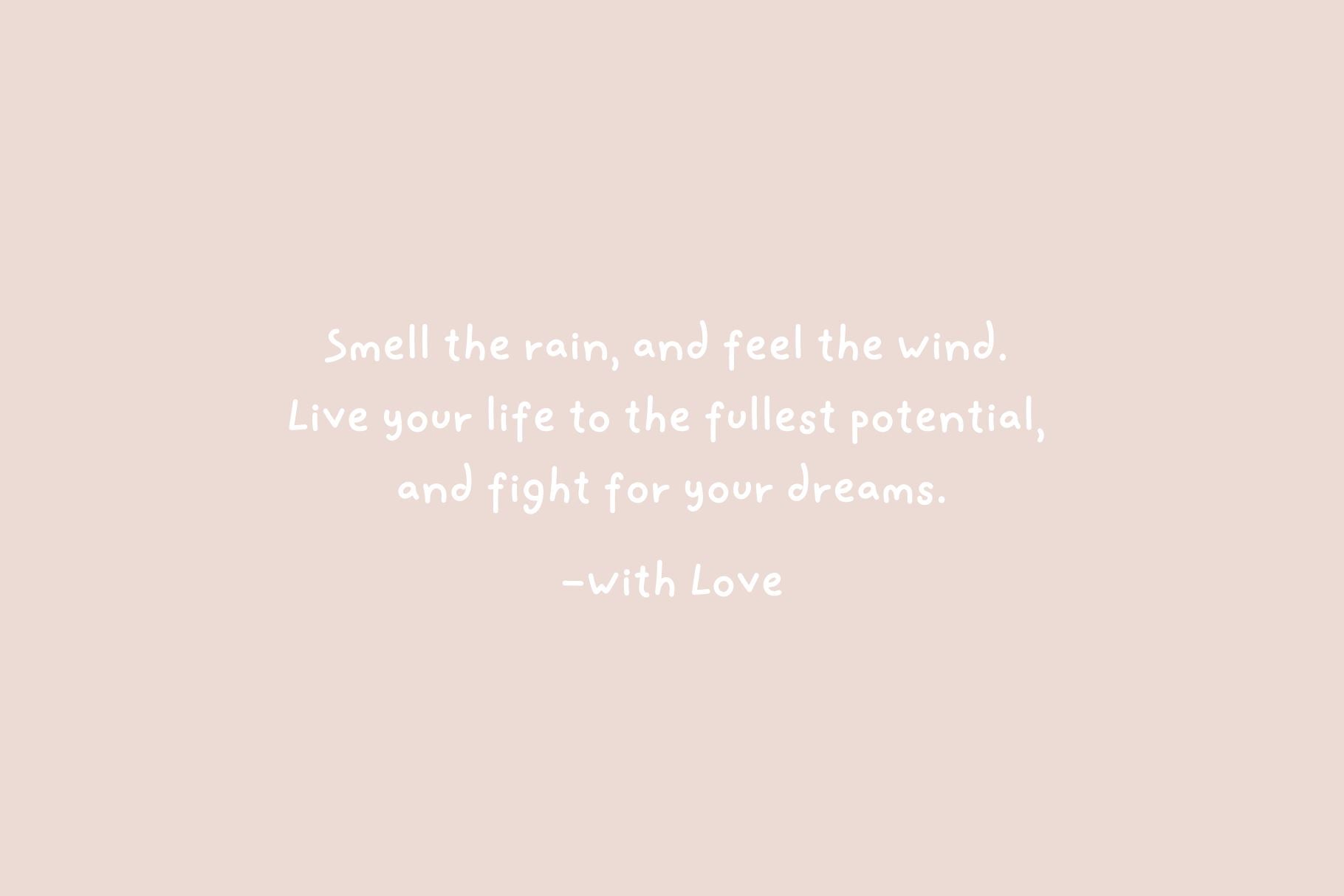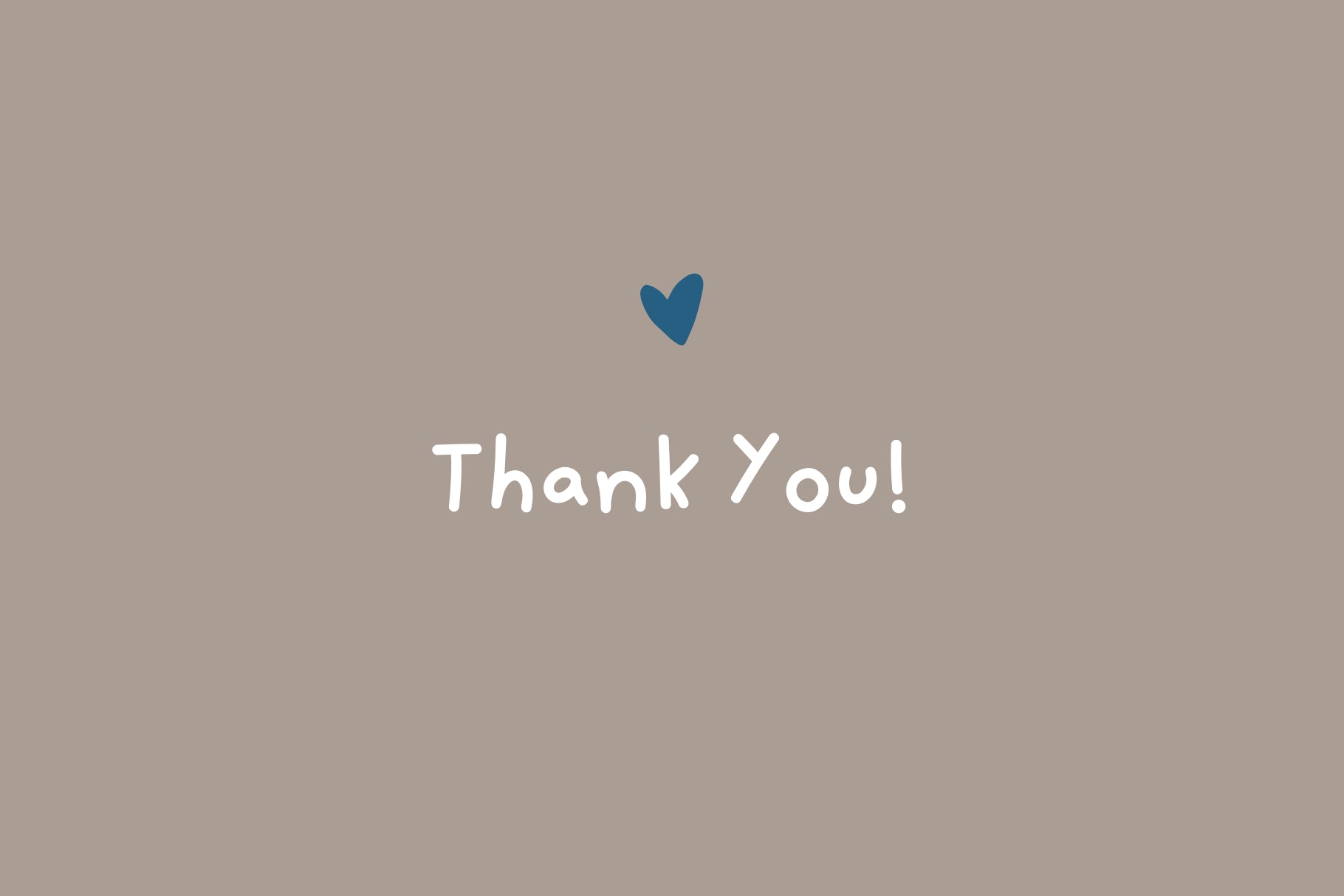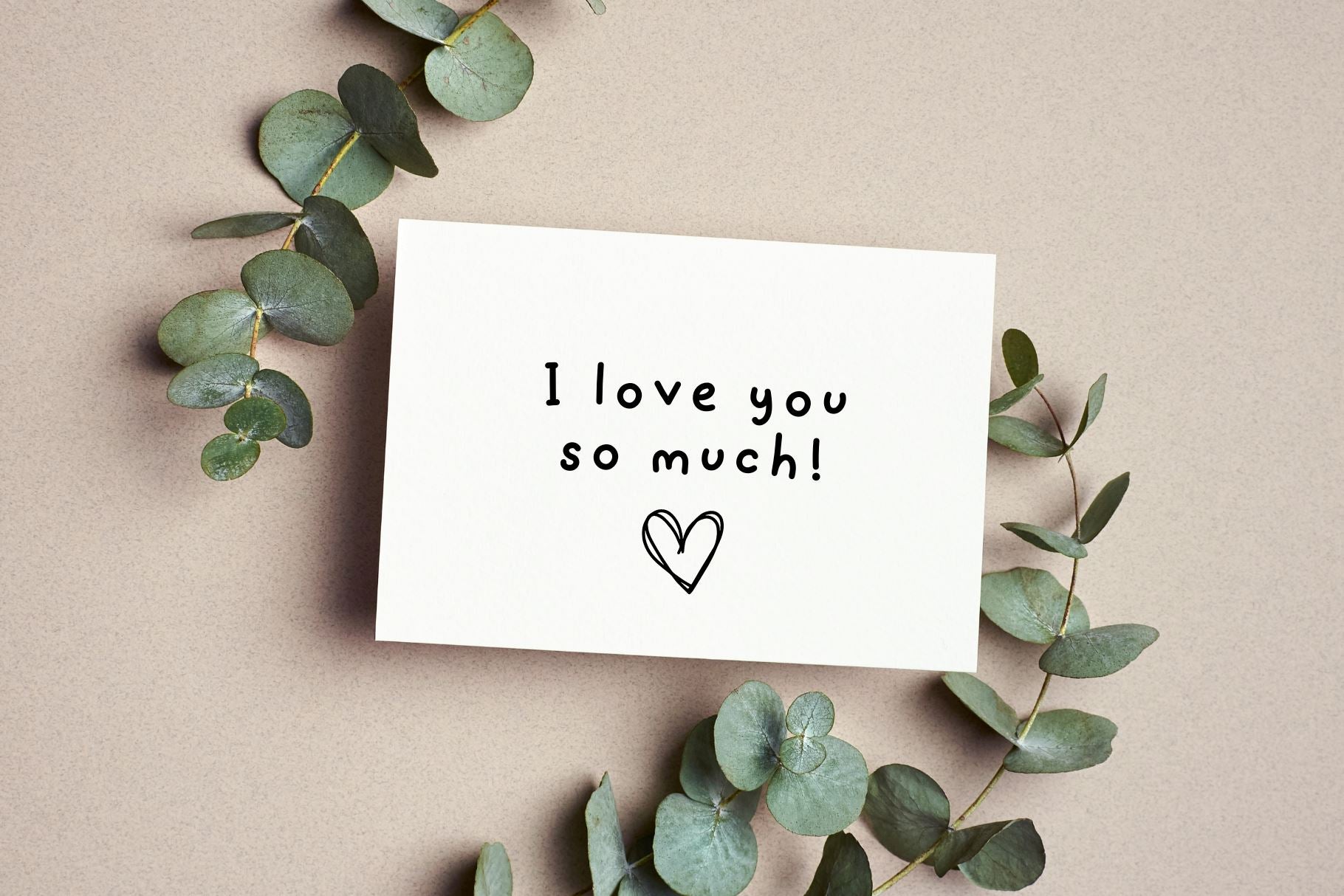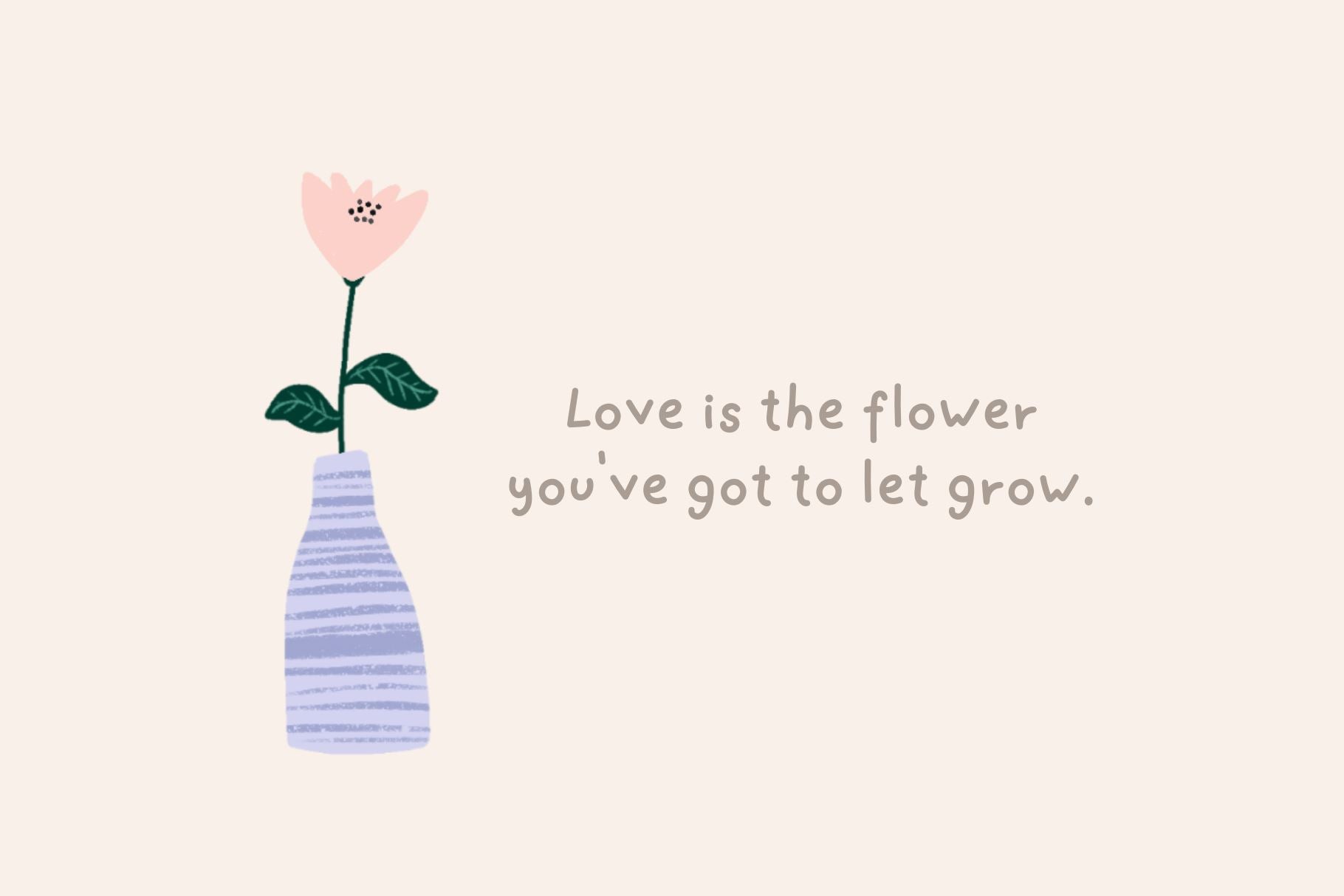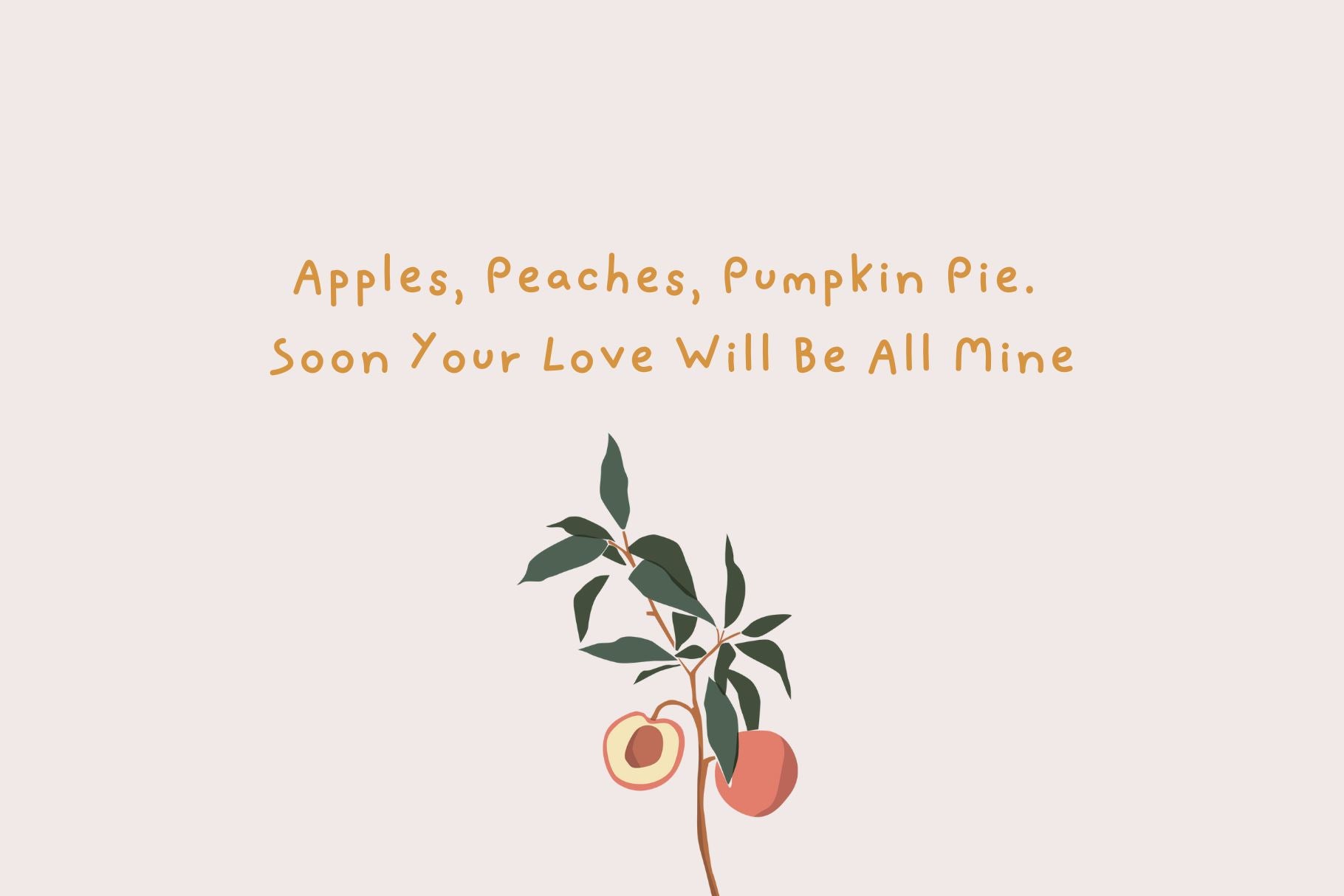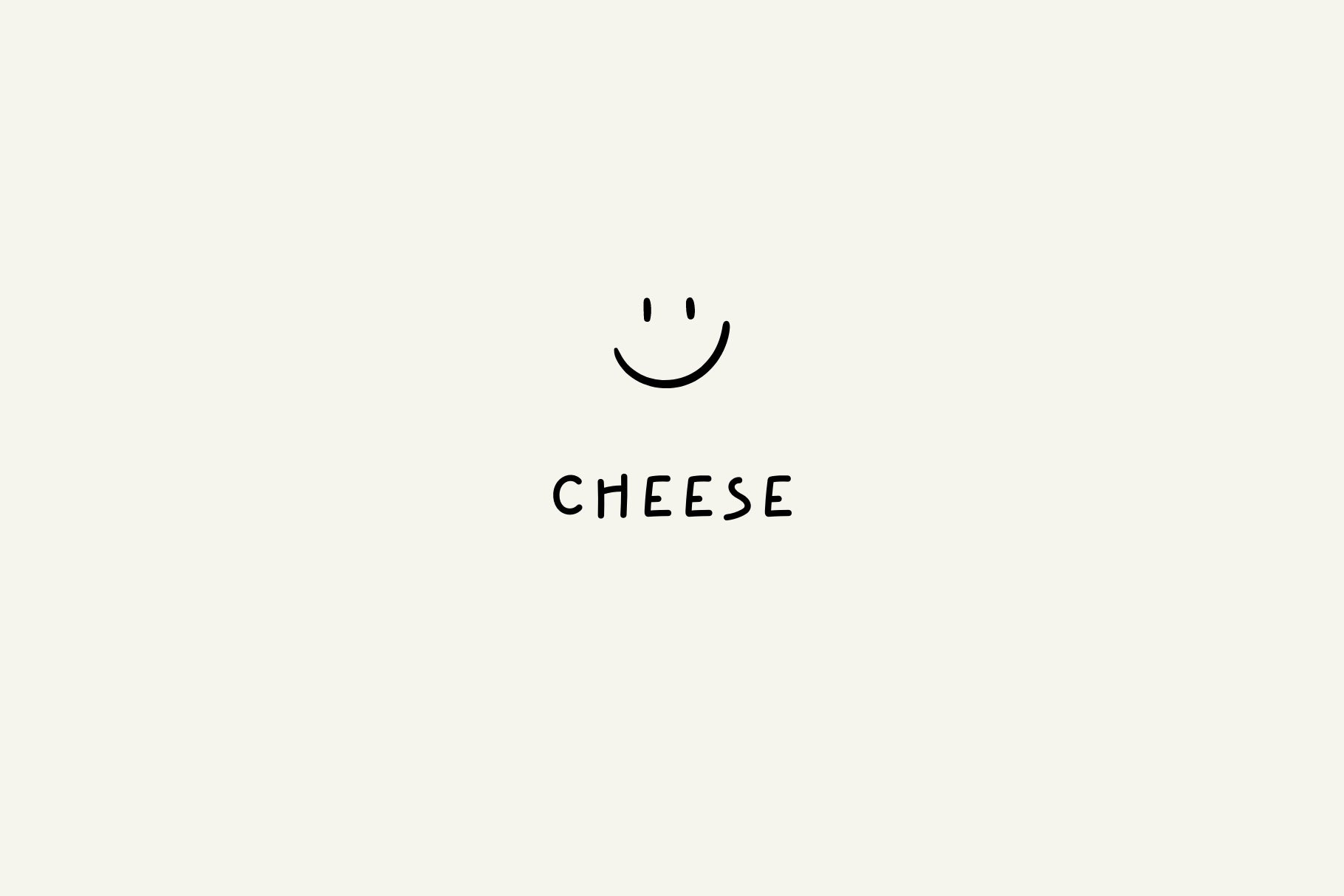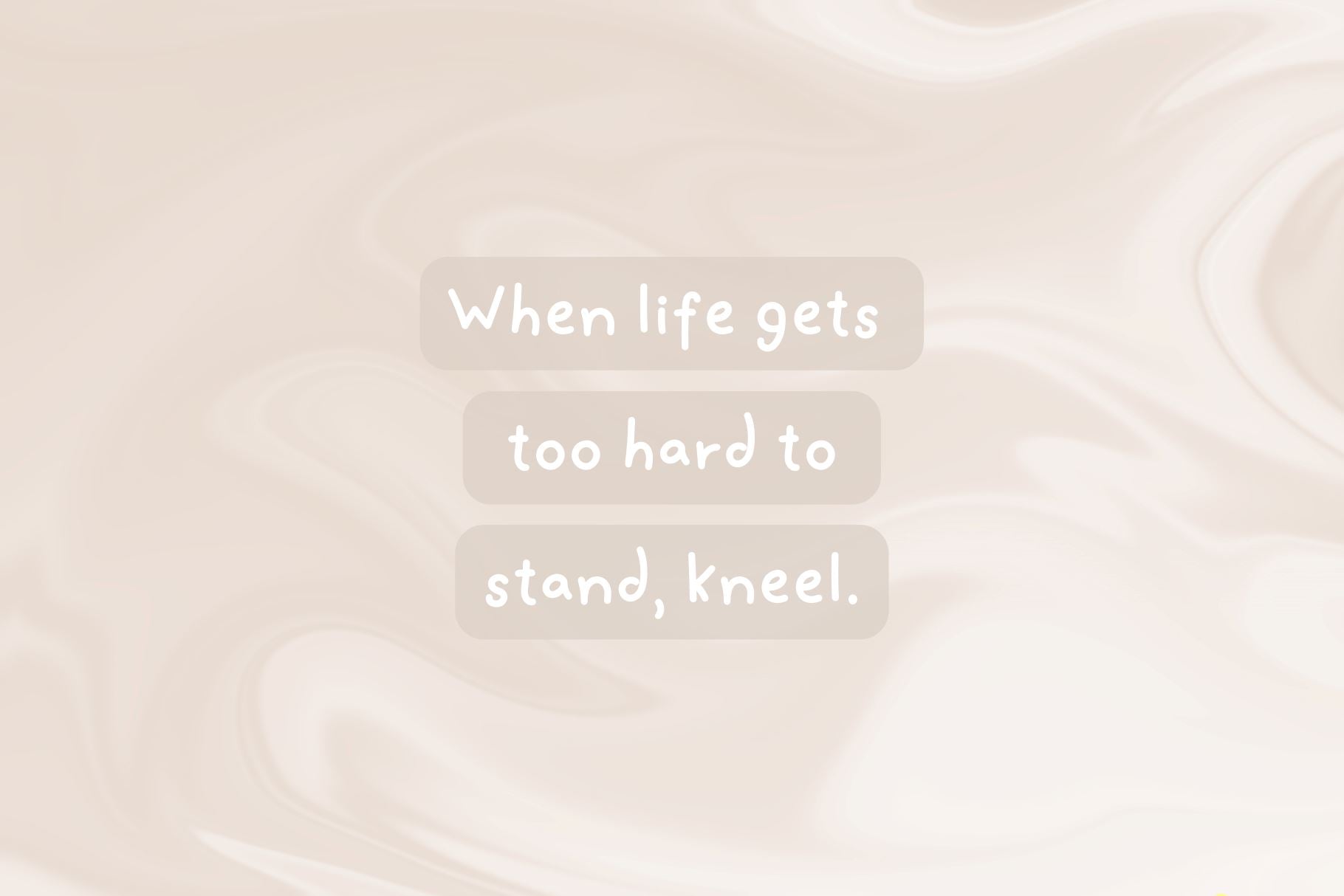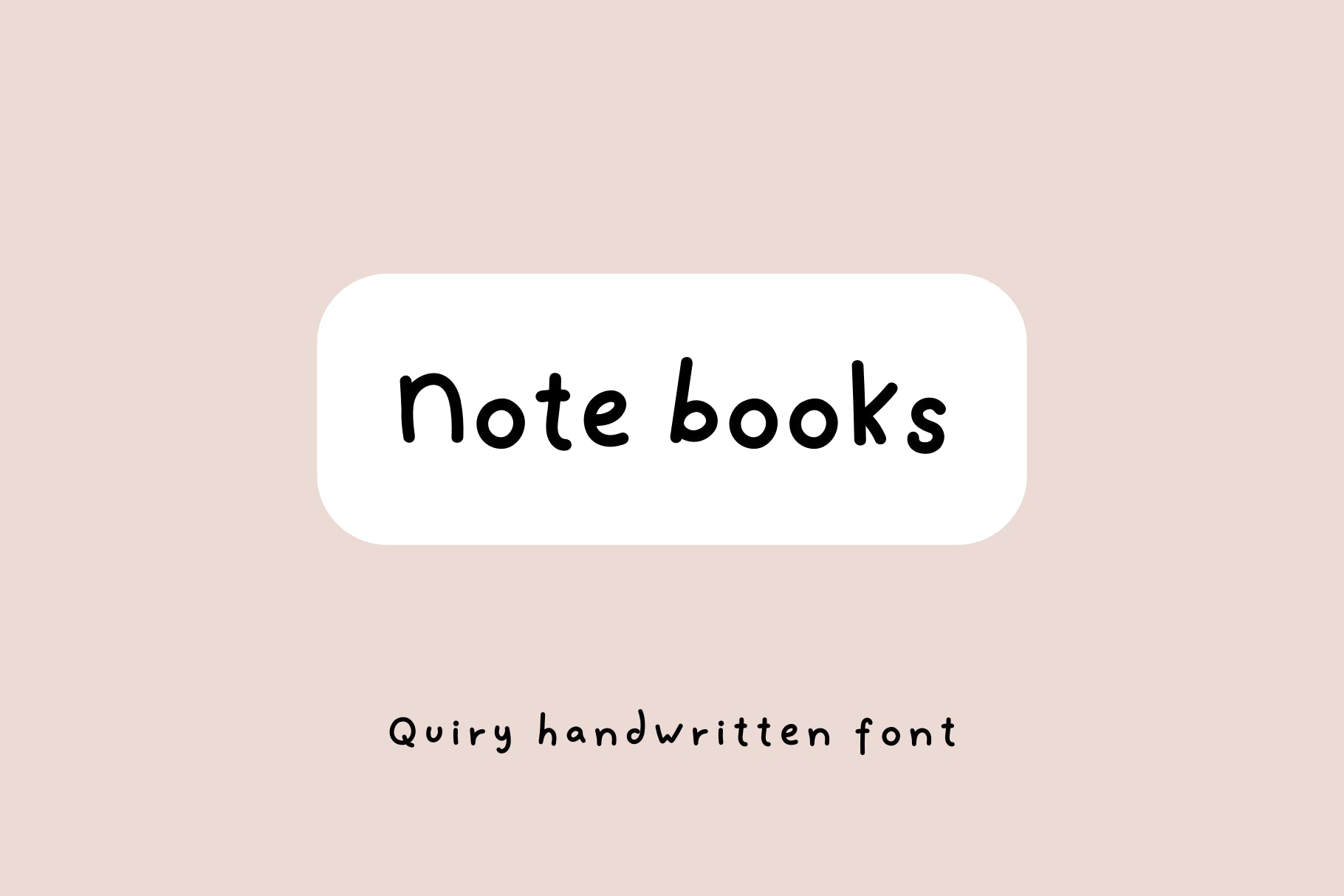
Note Books
About Note Books
Add some sweetness to your designs with this adorable font! It’s perfect for any project that needs a touch of whimsy and charm. From greeting cards and invitations to social media graphics and branding materials, our cute font will bring a playful energy to your work. This font is also prefect to spice up your digital notes! With its playful curves and delightful details, this font is sure to make your designs stand out. This font come in OTF & TTF Uppercase Letters Lowercase Letters Numbers & Punctuation Multilingual Support Characters: a b c d e f g h i j k l m n o p q r s t u v w x y z A B C D E F G H I J K L M N O P Q R S T U V W X Y Z 0 1 2 3 4 5 6 7 8 9 . , : ; ! ? ‘ \” ‘ ’ “ ” @ _ & # % * + – × ÷ = ~ < > / \ ( ) { } [ ] $ ¢ € £ ¥ © ® ™ À Á Â Ã Ä Å Æ Ç È É Ê Ë Ì Í Î Ï Ñ Ò Ó Ô Õ Ö Ø Œ Ù Ú Û Ü Ý Ÿ Þ Ð Ł Š Ž ¡ ¿ « » ‹ › ¤ • ° ± − ¶ § ‰ ⁄ – — à á â ã ä å æ ç è é ê ë ì í î ï ñ ò ó ô õ ö ø œ ù ú û ü ý ÿ þ ð ł š ž ß ı ^ ˆ ˇ ¨ ˜ ‘ ´ ¸ ‛ ‚ „ … | † ‡